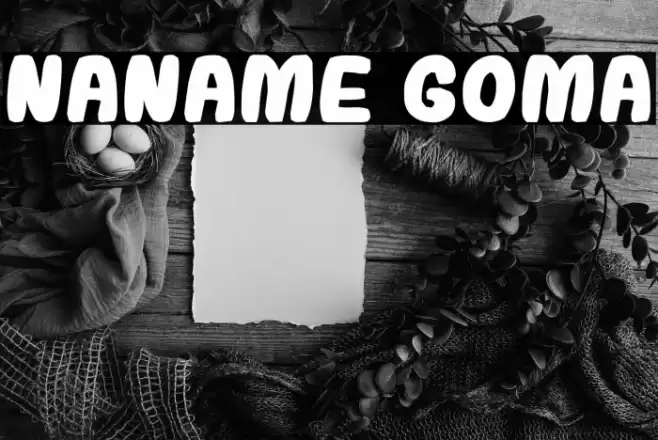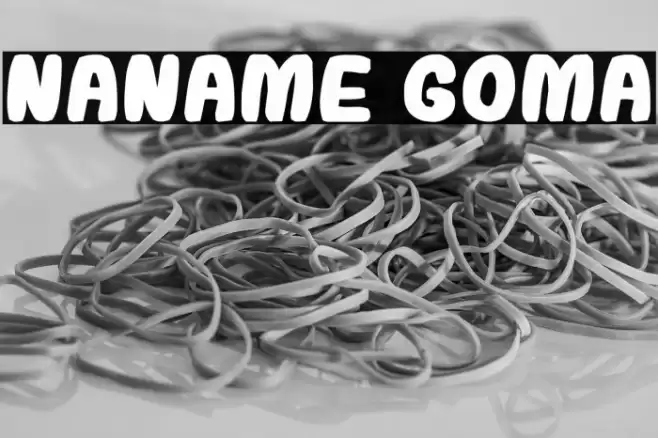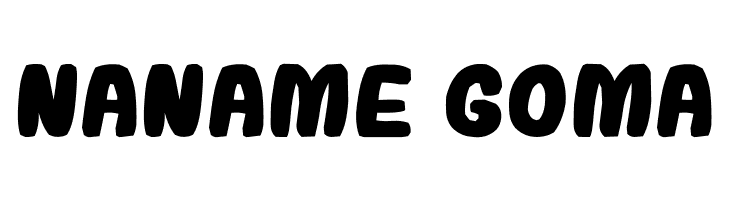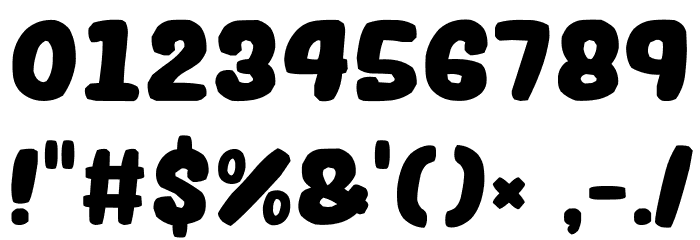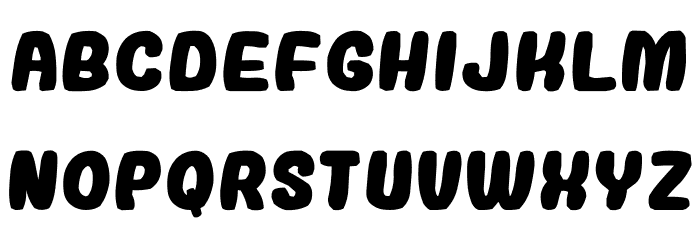
naname goma Font
naname goma Description
This font features a playful and bold design with rounded edges, giving it a friendly and approachable appearance. The characters are thick and slightly condensed, which enhances their visibility and impact. The uniform stroke width across all characters provides a consistent and cohesive look. The font's style is reminiscent of hand-drawn lettering, adding a touch of whimsy and charm. It includes a full set of uppercase and lowercase letters, numbers, and a variety of special characters, making it versatile for different design needs.
A playful, bold font with rounded edges and a hand-drawn feel from Uncategorized fonts.
- Proposed Projects: Ideal for children's books, playful branding, posters, and greeting cards.
- Width: Condensed
- Overall Style: Playful
- Use Case: Headlines, Logos